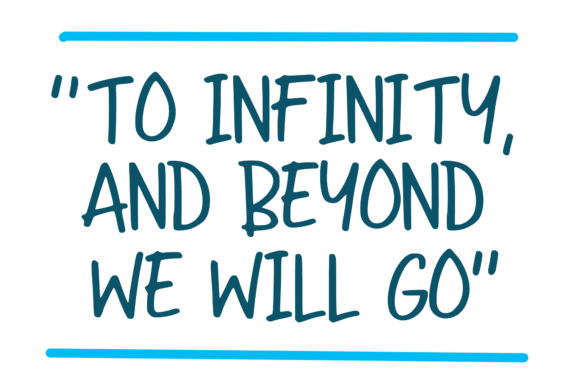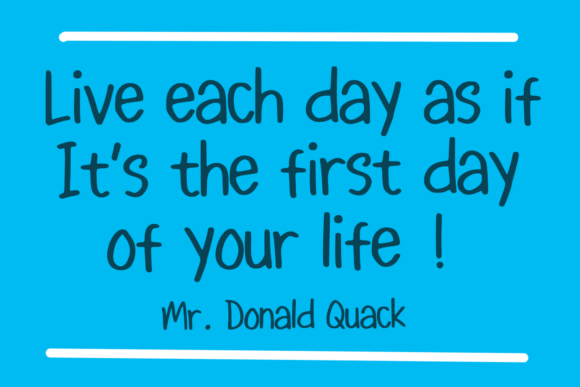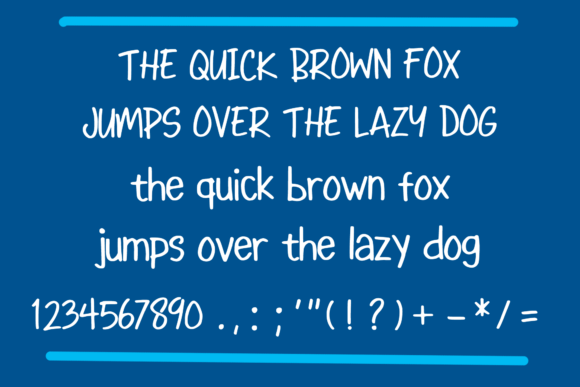
Unleash Your Inner Rebel with Boys Writing Font
Do you remember the thrill of scribbling in your notebook during class, the freedom of creating something entirely your own without a care in the world? That raw, unbridled energy is exactly what the Boys Writing Font embodies.
As a font, Boys Writing captures the essence of spontaneous boyhood scribbles, blending them with the bold, edgy spirit of street-style graffiti and urban tag art. Its cool, carefree strokes and expressive personality bring an unmistakable touch of street-smart charm to any project.
For designers, the Boys Writing Font is a valuable tool, perfect for adding an authentic, fun, and rebellious edge to youth-targeted branding, cartoons, doodles, and creative visuals. Let your ideas speak louder with the cool confidence of Boys Writing Font and make a lasting impression on your audience.
Key Features of “Boys Writing Font”
- Font Family: The “Boys Writing Font” is a unique handwritten font family with a bold, playful, and energetic feel.
- Unique Characteristics: The font features a mix of uppercase and lowercase letters, with a distinctive handwritten feel and subtle irregularities that add to its charm.
- Kerning and Ligatures: Includes advanced kerning and ligature pairs to ensure smooth and visually appealing text rendering, even at small font sizes.
Designer Review: Boys Writing Font
Overall, I’m quite impressed with the Boys Writing Font. It has a unique, playful vibe that’s perfect for casual projects, such as social media graphics, posters, and even children’s books. ✨ The font’s irregularities and imperfections give it a hand-written feel that’s both charming and relatable.
The Boys Writing Font is ideal for those who want to add a touch of whimsy to their designs. It works well for headings, titles, and short paragraphs of text. ✨ The font’s legibility is decent, and it’s easy to read even in smaller sizes.
- Unique, playful vibe
- Perfect for casual projects
- Hand-written feel
- Decent legibility
- Not suitable for formal or professional projects
- May be difficult to read in large blocks of text
- Lack of variation in font weight and style
Overall, I’d give the Boys Writing Font 4 out of 5 stars. It’s a fun and creative font that’s perfect for casual projects, but may not be the best choice for more formal or professional designs.
The “Boys Writing Font” is ideal for creating playful and casual designs, such as:
- Children’s party invitations
- Handwritten-style posters
- Informal social media graphics